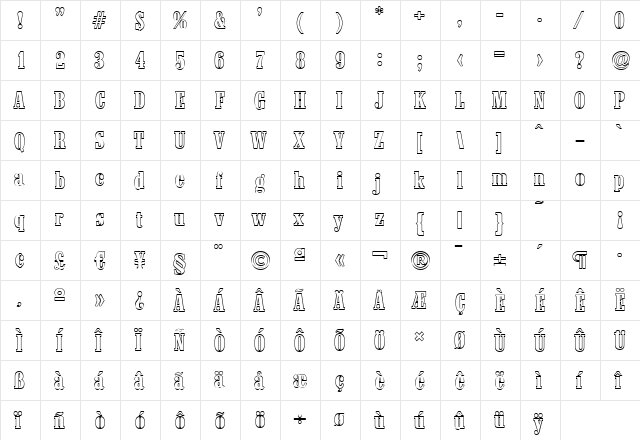
RobertBeckerOutline Bold
Design Context for RobertBeckerOutline Typeface
RobertBeckerOutline brings ornamental detail and strong personality to headlines and identities, where visual impact matters more than quiet functionality. The heavy weight commands attention and anchors typographic hierarchies.
Font Pairing: Pair with a clean neutral sans-serif for body copy to let RobertBeckerOutline's character lead without overwhelming the composition.
Pro Tip: Use RobertBeckerOutline exclusively at display sizes — it was designed to be seen, not read at length. Let a neutral companion handle body copy.